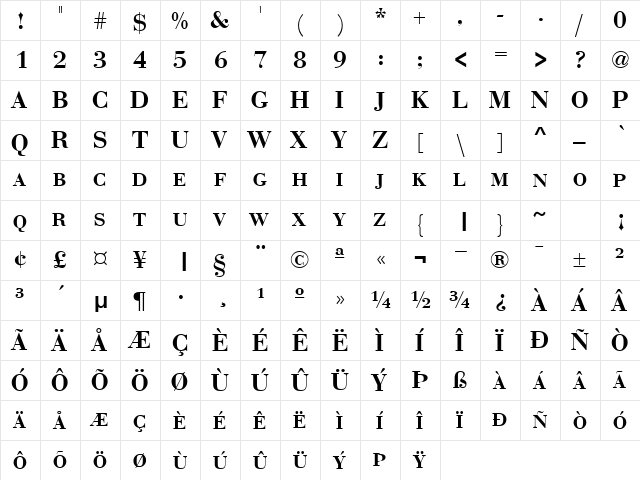
BodoniExpert Bold Font Preview
BodoniExpert Bold
BodoniExpert Bold Font Details
Design Context for BodoniExpert Typeface
BodoniExpert takes a measured approach to typography — its balanced proportions and neutral character make it a reliable workhorse for both digital and print work. Its bold stroke weight gives it real presence on the page.